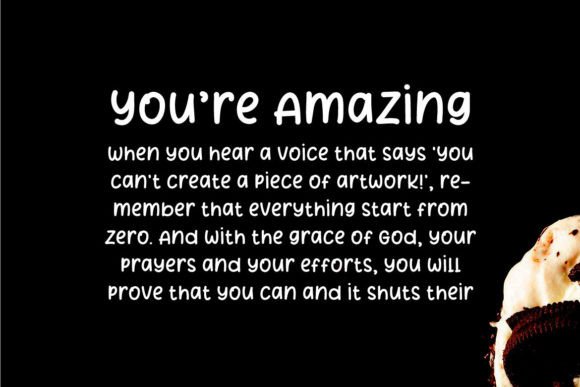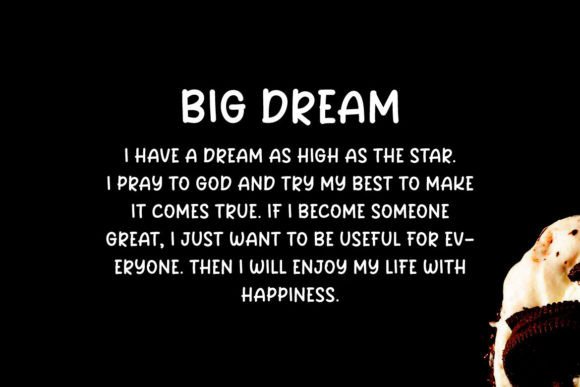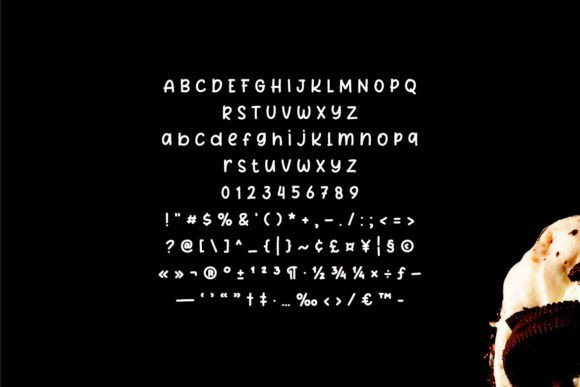
Cookies and Cream Font: The Sweetest Addition to Your Design Toolbox
Are you on the hunt for a font that’s as sweet as it is versatile? Look no further than the Cookies and Cream Font, a delightful addition to any design project. But what makes this font truly special is its similarity in style to another fantastic font, **Handy Talkie**, a minimalist handwritten comic font. Handy Talkie can be used in any work such as a comic book, poster, school, flyer, book title, advertisement, social media content, logo, and many more. In this article, we’ll dive into the world of Cookies and Cream Font and explore its uses, benefits, and how it compares to Handy Talkie.
The Charm of Cookies and Cream Font
Cookies and Cream Font is a delightful, creamy-smooth font that’s perfect for a wide range of design projects. Its playful, whimsical vibe makes it an excellent choice for designs that require a touch of fun and personality. Whether you’re working on a children’s book, a bakery advertisement, or a social media post, this font is sure to bring a smile to your audience’s faces.
What Makes Cookies and Cream Font Special?
- Unique Character: Cookies and Cream Font boasts a distinctive character that’s both quirky and charming. Its irregularities and imperfections give it a handcrafted feel that’s perfect for designs that require a personal touch.
- Versatility: This font is incredibly versatile and can be used in a wide range of design projects, from digital content to print materials.
- Readability: Despite its playful nature, Cookies and Cream Font remains highly readable, making it an excellent choice for body text and headings.
Handy Talkie: A Similar yet Distinctive Font
**Handy Talkie** is a minimalist handwritten comic font that’s perfect for designers who want a clean, simple look. Like Cookies and Cream Font, Handy Talkie is highly versatile and can be used in a variety of design projects. However, its minimalist approach sets it apart from Cookies and Cream Font, making it an excellent choice for designs that require a more subtle touch.
Comparing Cookies and Cream Font and Handy Talkie
While both fonts share some similarities, they have distinct personalities that set them apart. Cookies and Cream Font is perfect for designs that require a playful, whimsical touch, while Handy Talkie is better suited for designs that require a clean, minimalist approach.
| Font | Style | Use Cases |
|---|---|---|
| Cookies and Cream Font | Playful, Whimsical | Children’s books, bakery advertisements, social media posts |
| **Handy Talkie** | Minimalist, Handwritten | Comic books, posters, school projects, flyers, book titles, advertisements |
Tips for Using Cookies and Cream Font
To get the most out of Cookies and Cream Font, here are a few tips to keep in mind:
- Pair it with a bold font: Cookies and Cream Font pairs perfectly with bold, sans-serif fonts that provide a nice contrast to its playful nature.
- Use it for headings: This font is perfect for headings and titles, where its playful vibe can really shine.
- Experiment with colors: Cookies and Cream Font looks great in a variety of colors, from bright and bold to soft and pastel.
In conclusion, Cookies and Cream Font is a delightful addition to any design toolbox, offering a unique blend of playfulness and versatility. While **Handy Talkie** shares some similarities with Cookies and Cream Font, its minimalist approach sets it apart as a distinct and valuable option. By understanding the strengths and weaknesses of each font, designers can make informed decisions about which font to use for their next project.
Whether you’re a seasoned designer or a crafty DIY enthusiast, Cookies and Cream Font and Handy Talkie are sure to become your go-to fonts for a wide range of design projects. So why not give them a try and see the difference they can make in your designs?